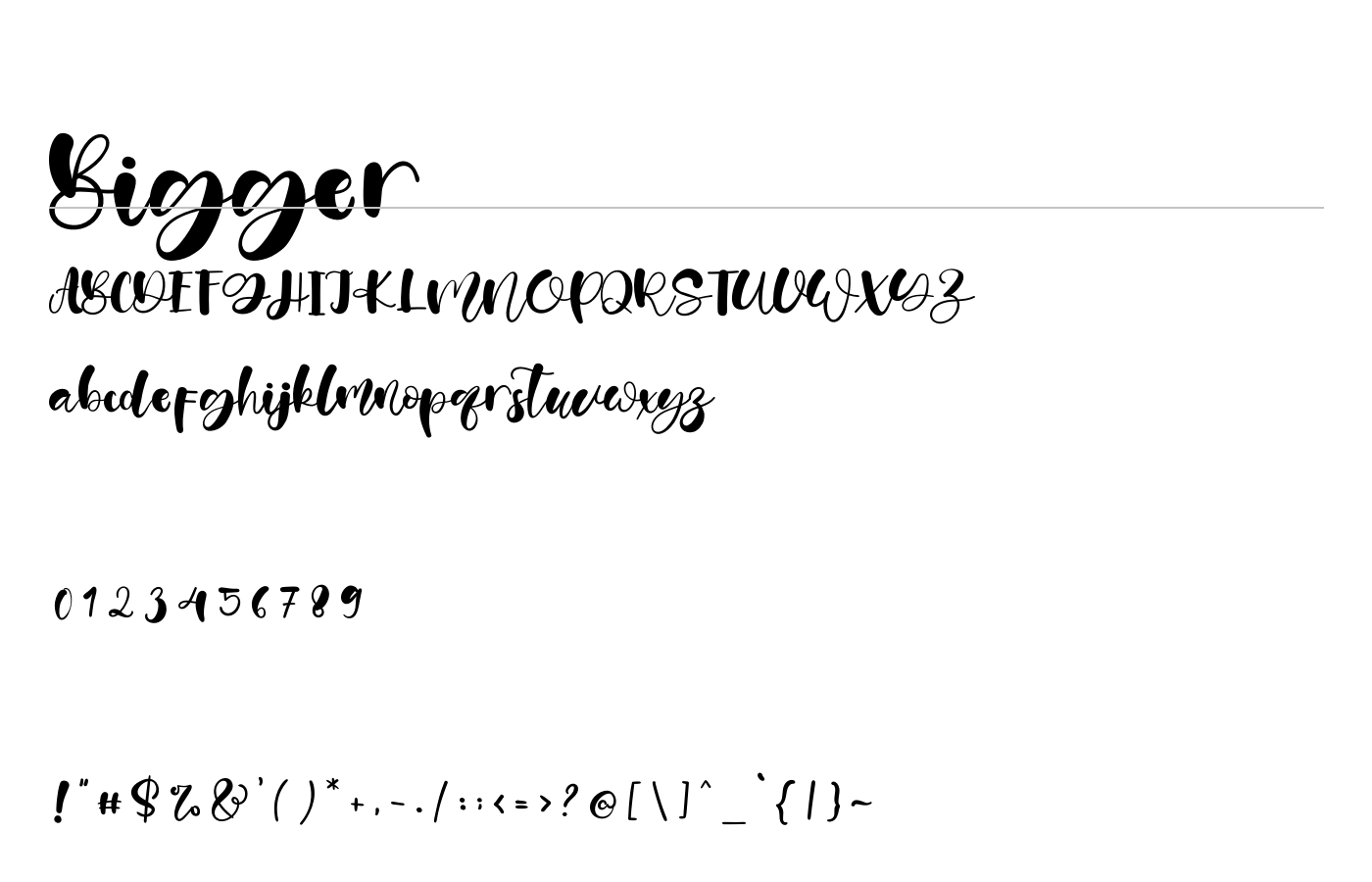
Bigger Font is an expressive script typeface with a casual, hand-lettered feel, featuring smooth, flowing strokes and moderate contrast between thick and thin lines. Its playful yet elegant style makes it ideal for creative projects such as invitations, branding, and packaging, where a personal and approachable touch is desired. The font’s lively curves and unique character shapes add charm and warmth, making it perfect for designs that aim to feel friendly and inviting.
Bigger Font
About Bigger Font
| Font family | Bigger Font |